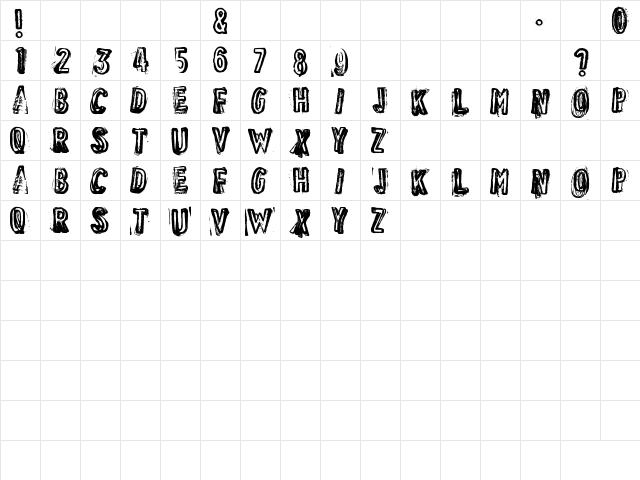
VINTAGE FIND DISTRESSED Bold
Design Context for VINTAGE FIND DISTRESSED Typeface
VINTAGE FIND DISTRESSED has the warm character of retro typography — evoking diners, record sleeves, and the golden age of print advertising. The heavy weight commands attention and anchors typographic hierarchies.
Font Pairing: Combine VINTAGE FIND DISTRESSED with a simple slab or neutral sans — period-accurate companions reinforce the vintage feel without competing for attention.
Pro Tip: Use VINTAGE FIND DISTRESSED for headlines and pull quotes rather than body copy — its personality is best appreciated in short, focused bursts.